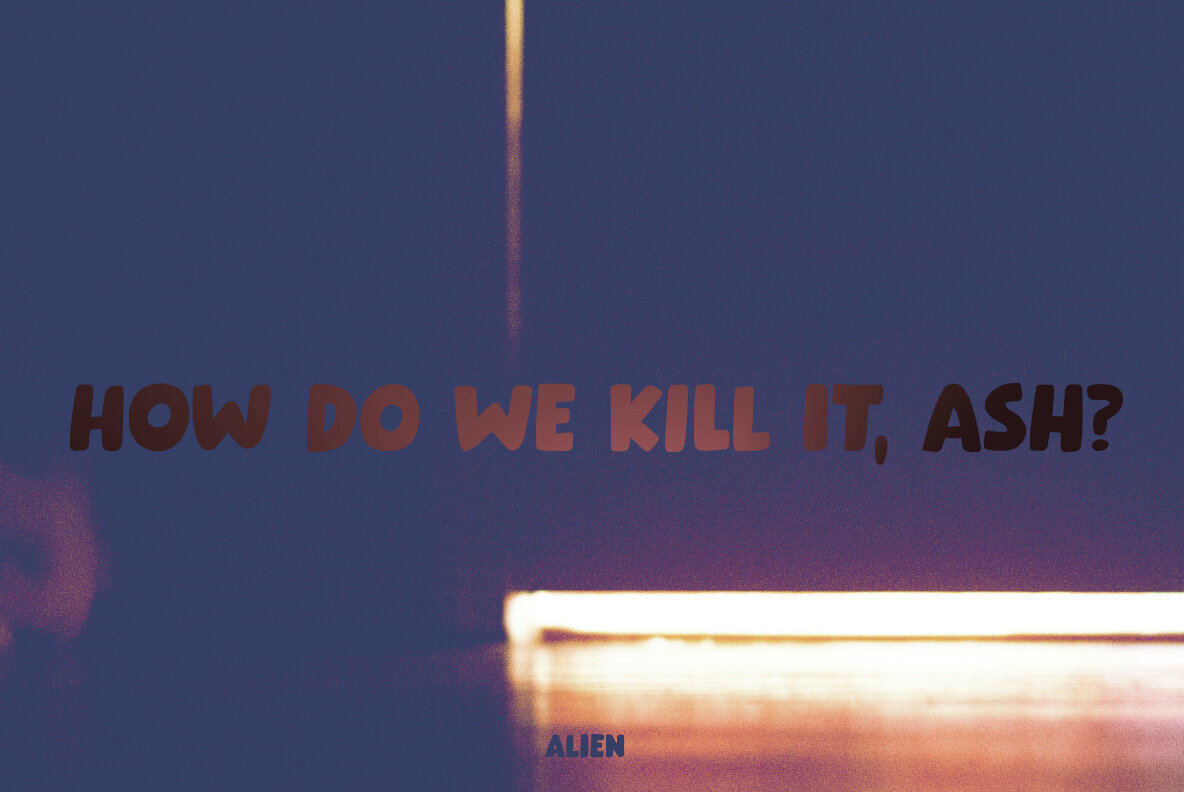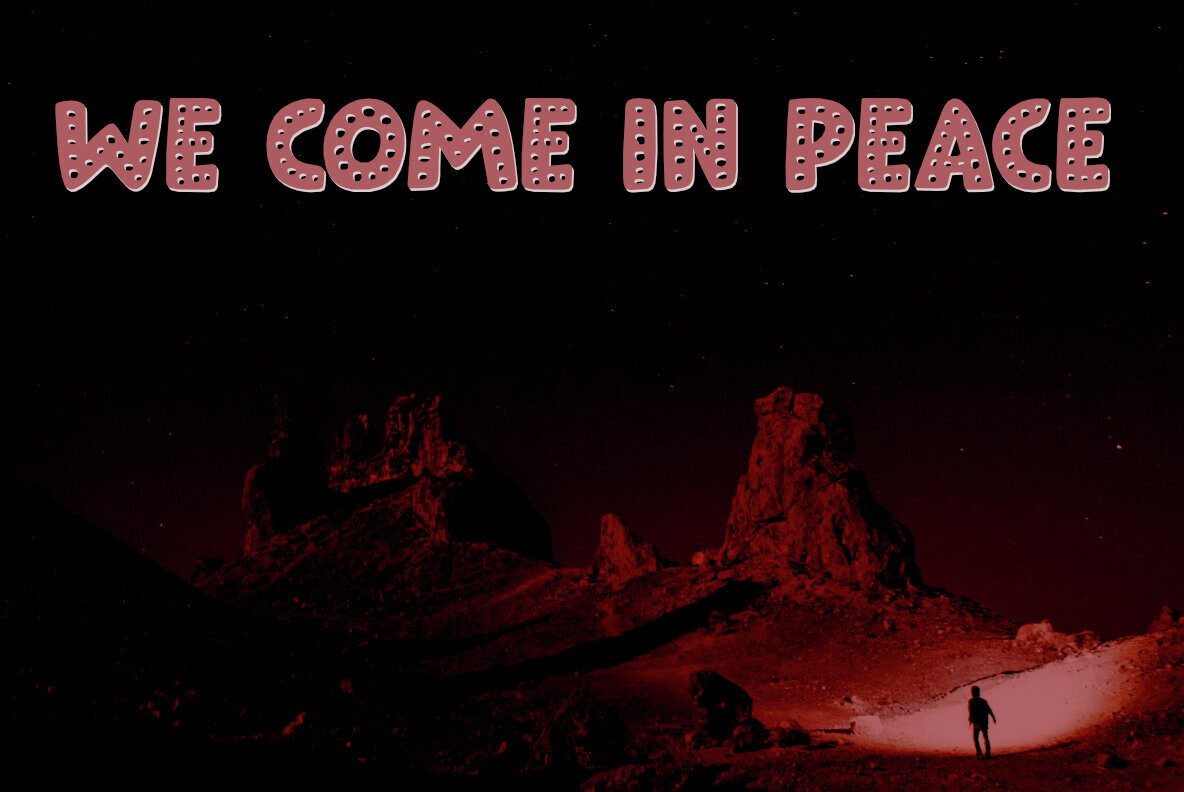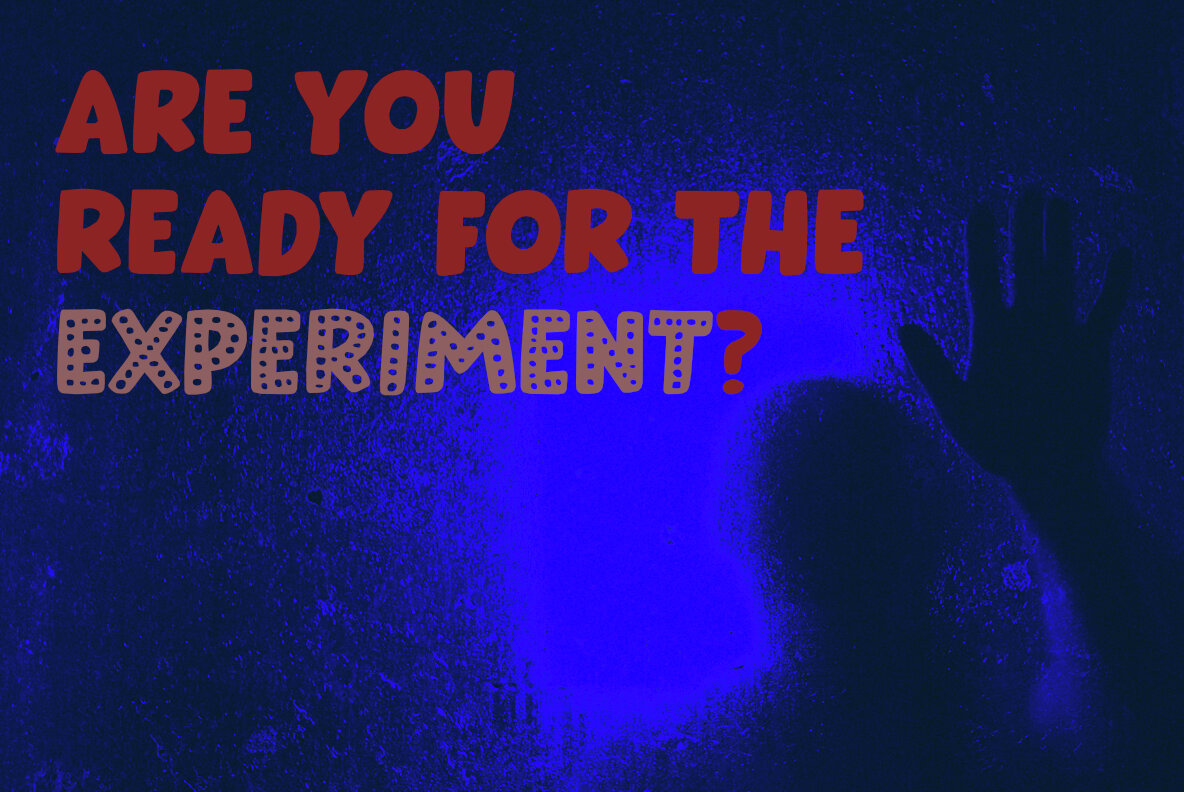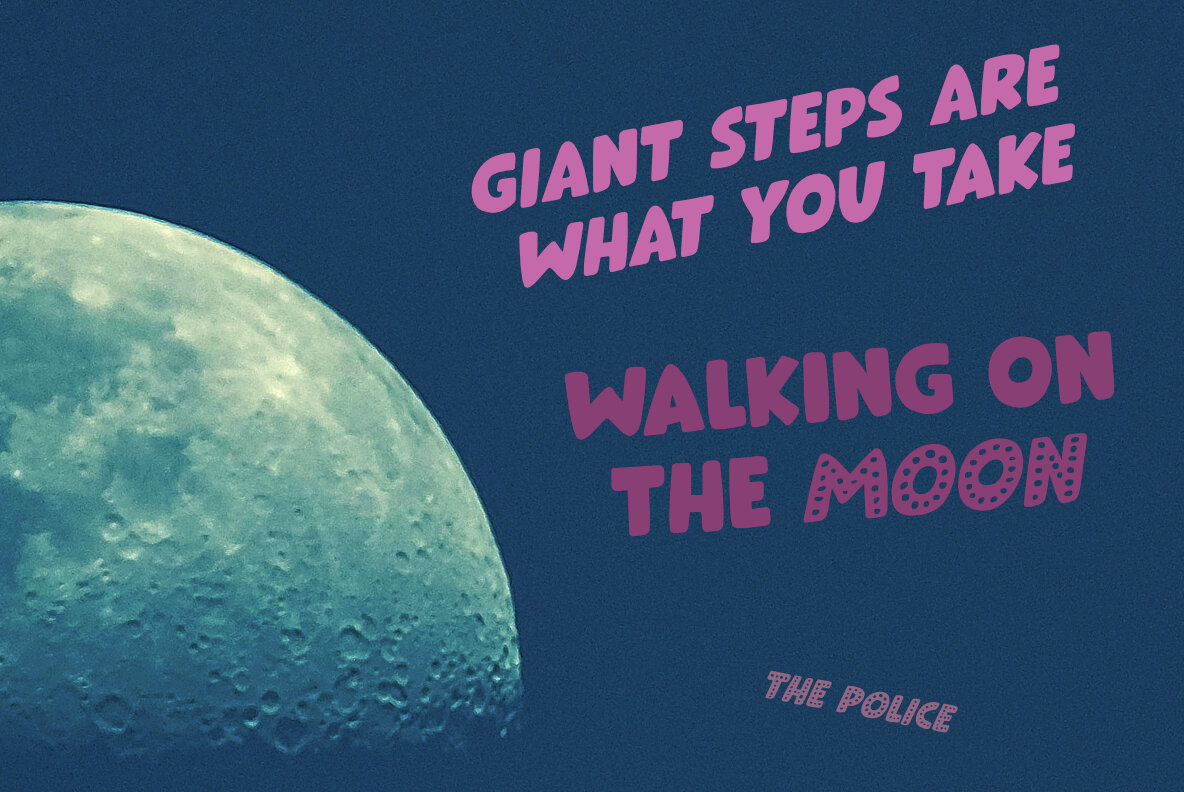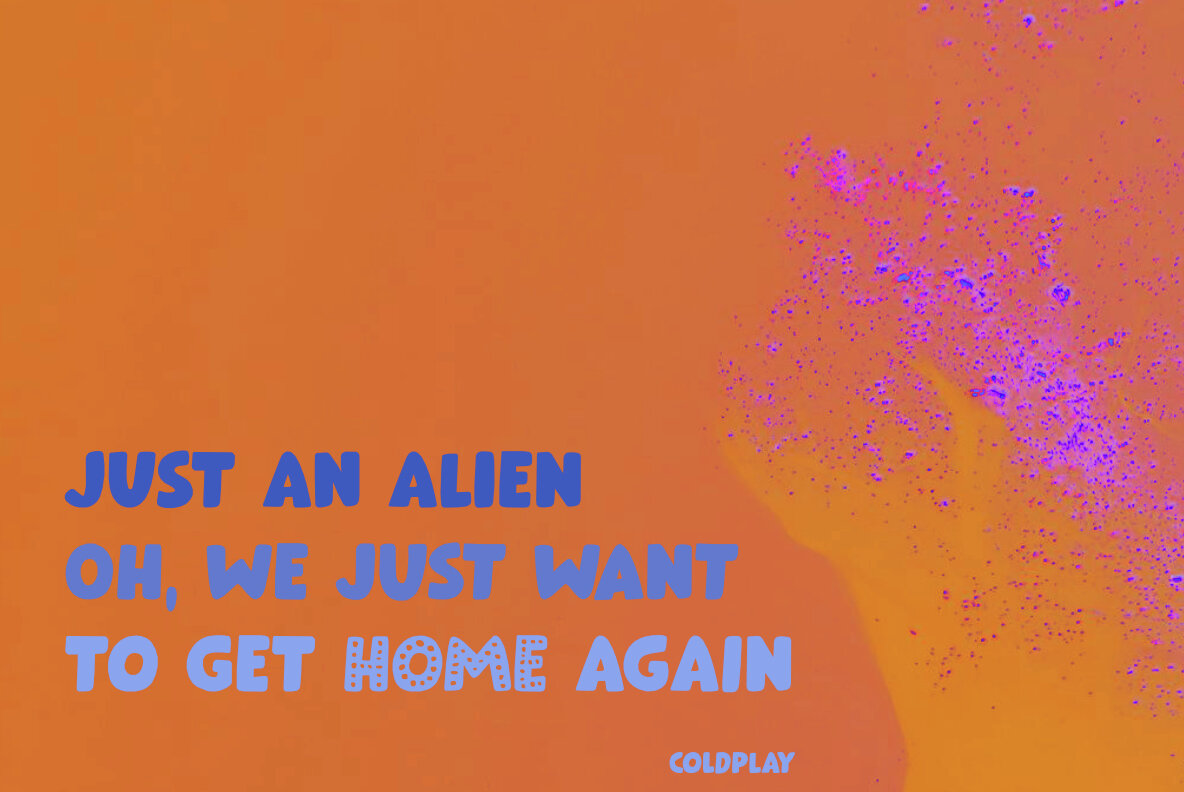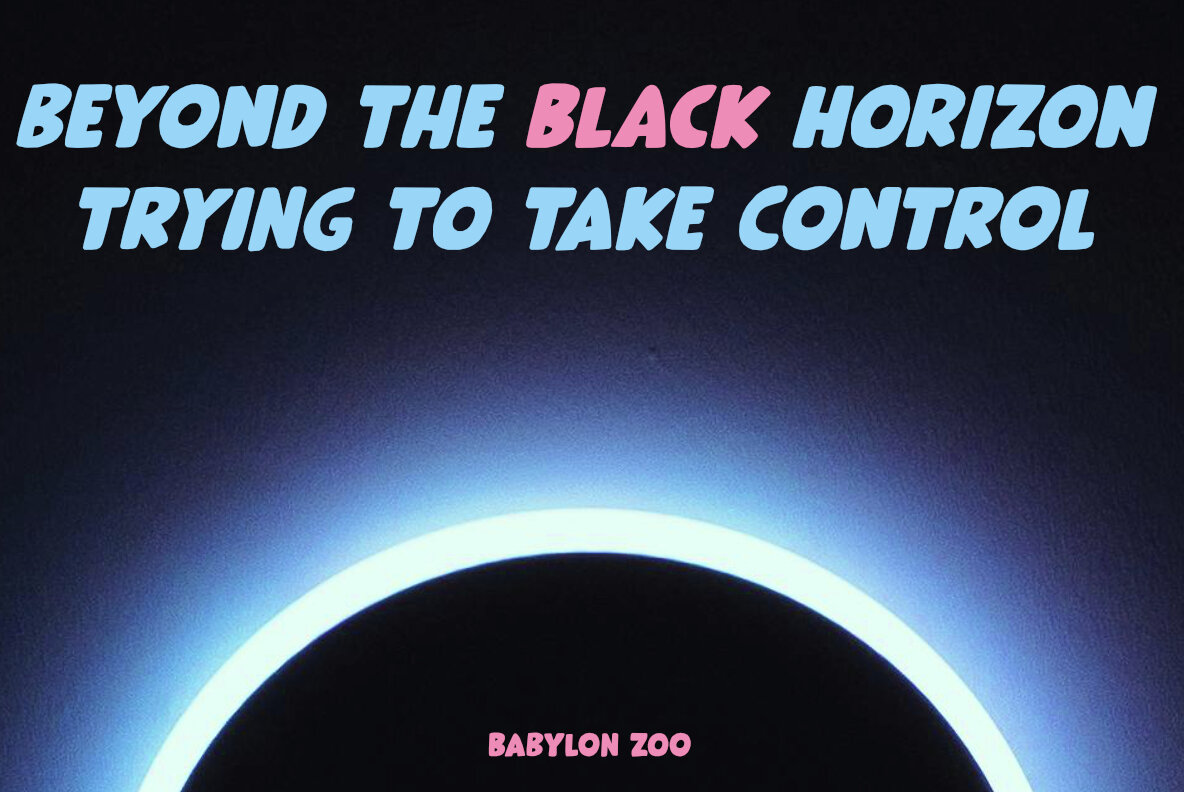
Alien Circus Font
Alien Circus Regular
Alien CircusDots Regular
Alien Circus Italic
Alien CircusDots Italic
Alien Circus is a charming, bold, and handmade font that brings a touch of playfulness to your designs. Inspired by the distinct and vibrant culture of Japan, this font is crafted to be uncomplicated and fun, making it ideal for a variety of creative projects. Its informal and relaxed style lends itself perfectly to playful headings, quirky posters, and eye-catching banners.
With both a normal and a dotted set, Alien Circus offers versatility and creativity for any graphic design project. Its robust strokes and whimsical appearance make it a great choice for designers looking to inject a sense of fun and uniqueness into their work. Embrace the joyful, laid-back vibe of Alien Circus and let it add a splash of personality to your next project.